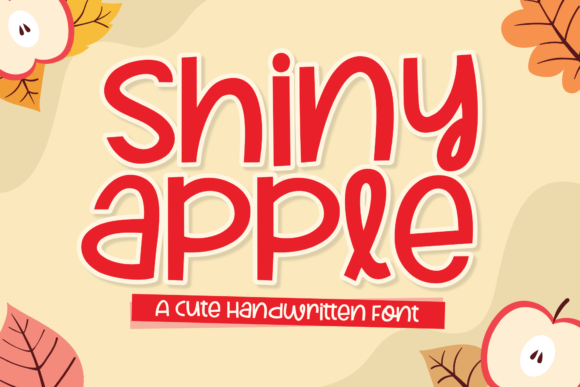
Behold, the captivating Shiny Apple Font, a masterpiece from Holydie Studio, awaits your creative embrace. This display font exudes sweetness and joy, making it the perfect choice for cartoonish designs, children's games, and any creation seeking a touch of charm.
Immerse yourself in the world of Shiny Apple, where letters dance with delight, captivating your audience with their playful spirit. Let your imagination soar as you explore endless possibilities, from whimsical illustrations to heartwarming branding.
With its versatility, Shiny Apple adapts seamlessly to your creative vision. Whether you're crafting posters that burst with color or designing logos that leave a lasting impression, this font will elevate your designs to new heights.
Unleash the boundless potential of Shiny Apple. Its playful nature will add a touch of magic to your plasma cutting projects, transforming ordinary creations into extraordinary works of art. Let your imagination run wild as you craft unique signs, decorations, and personalized gifts that ignite the senses.